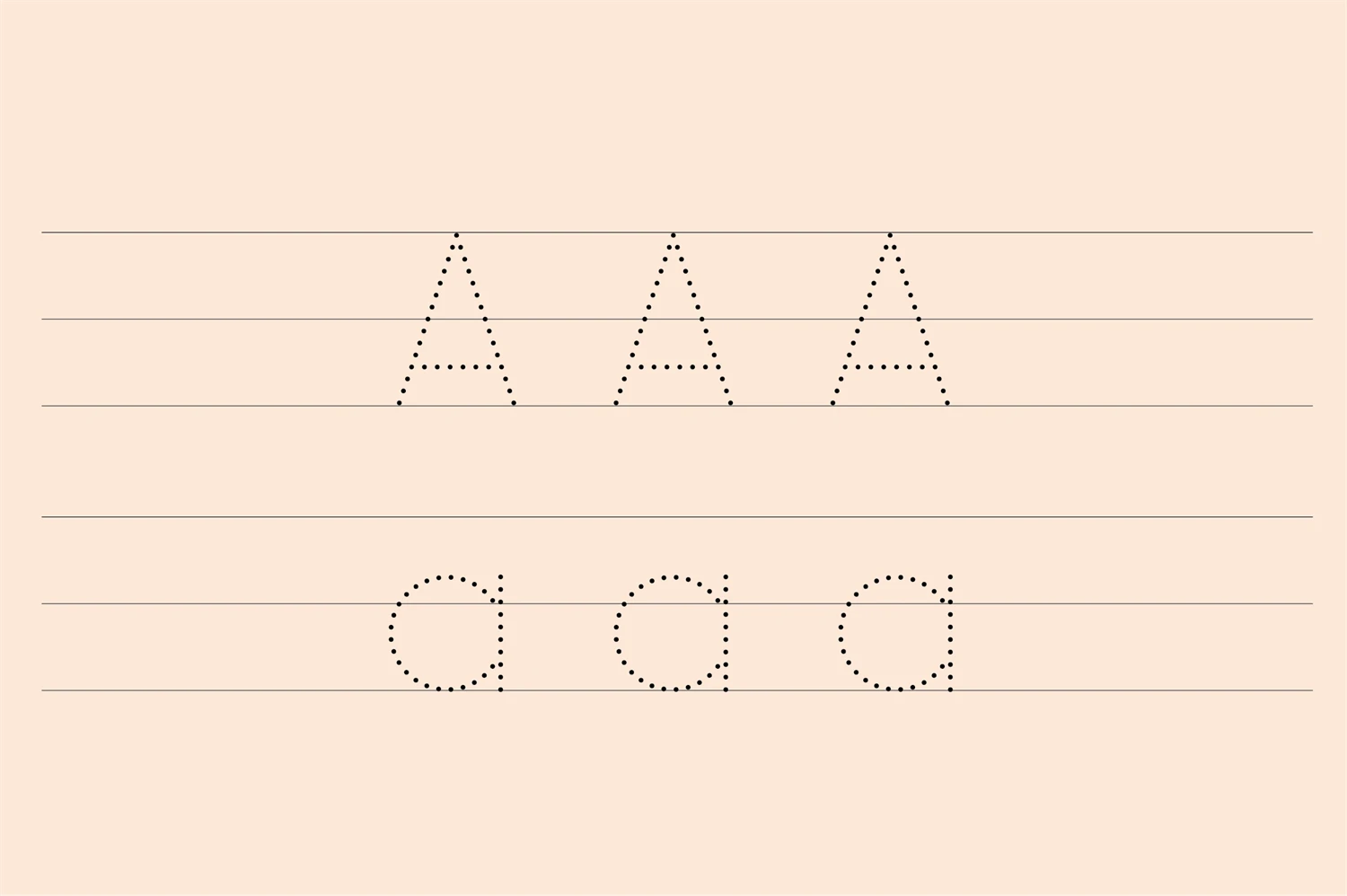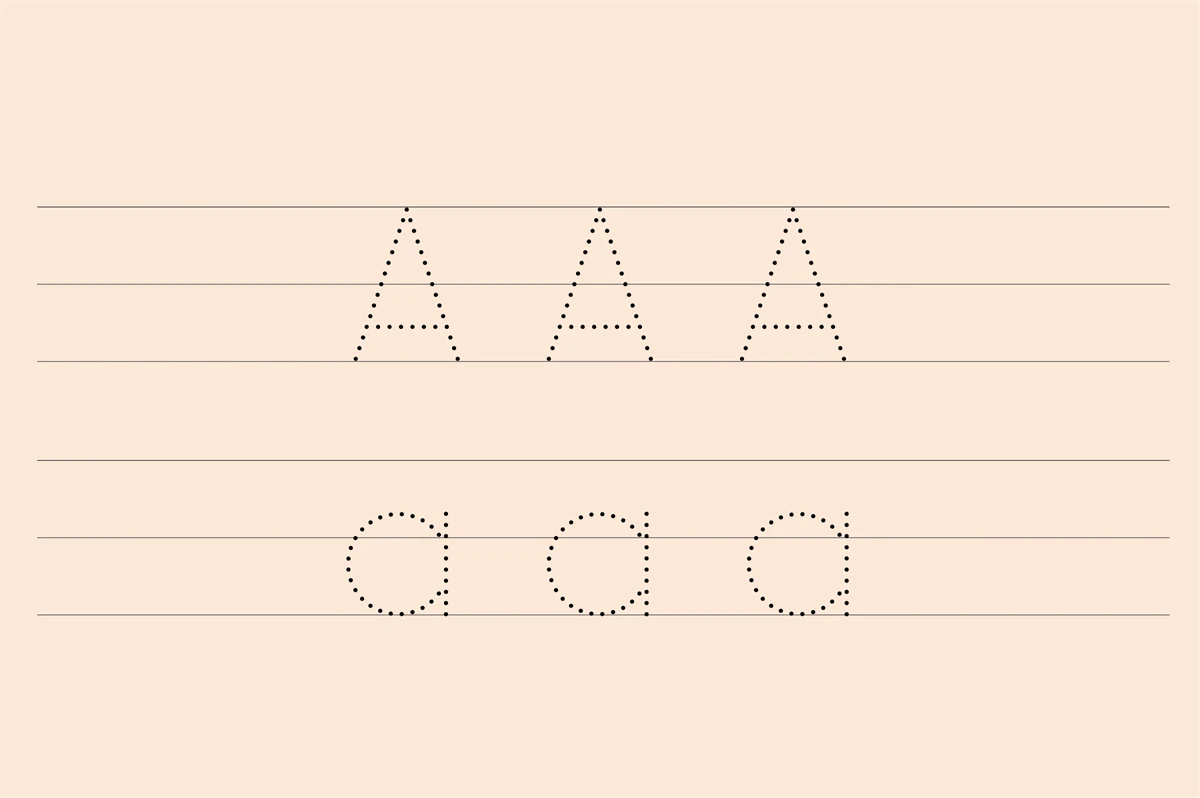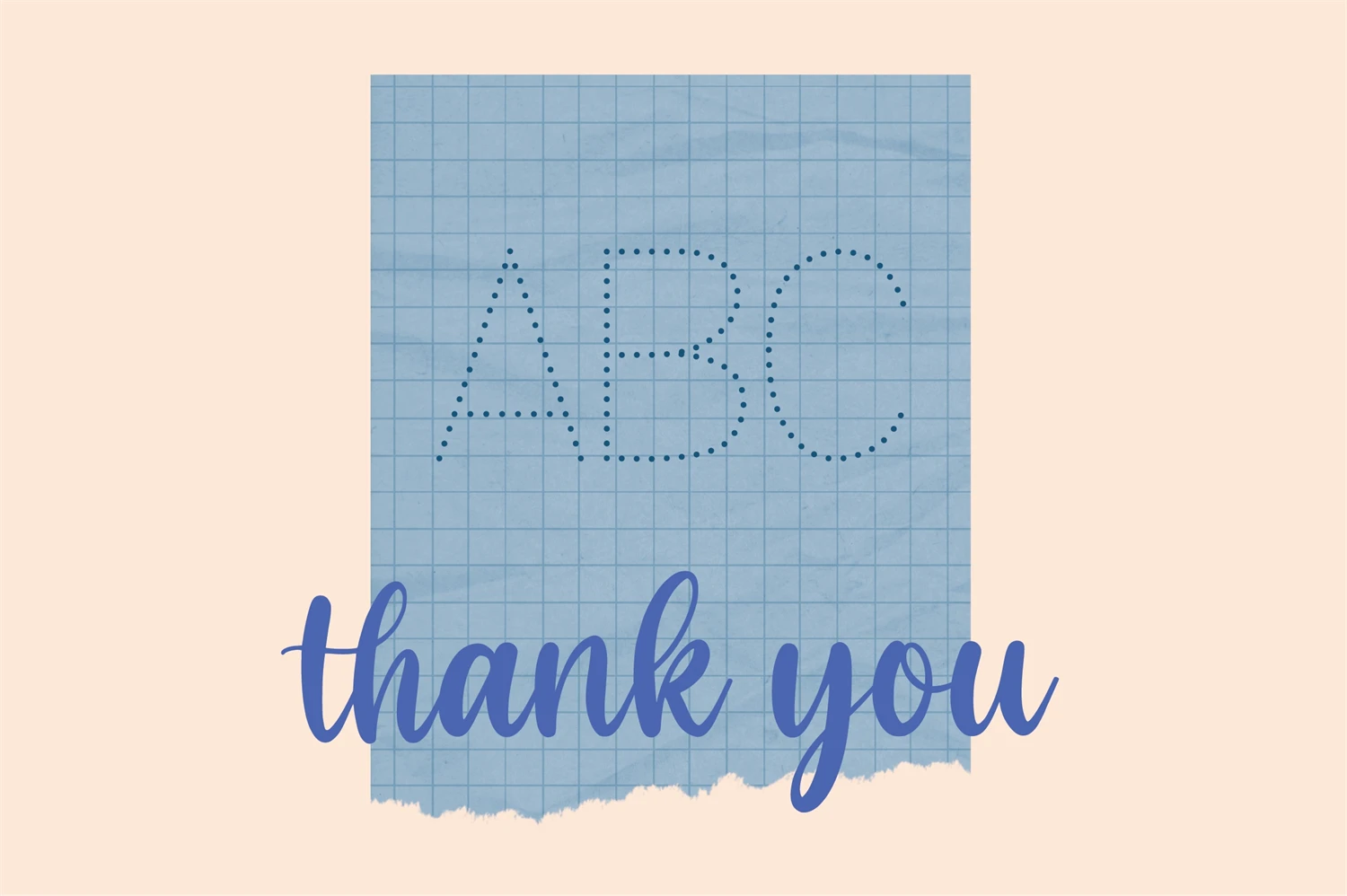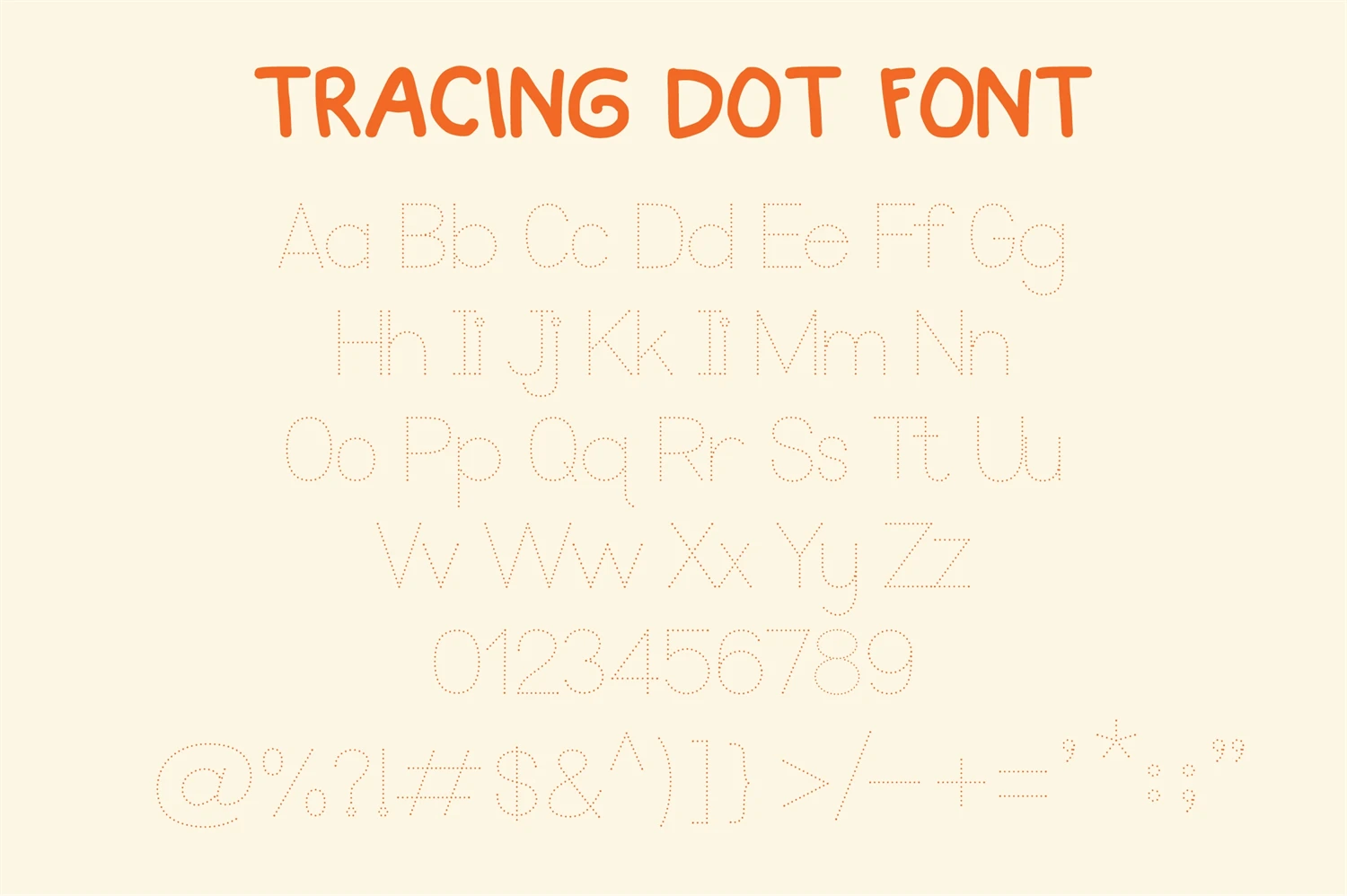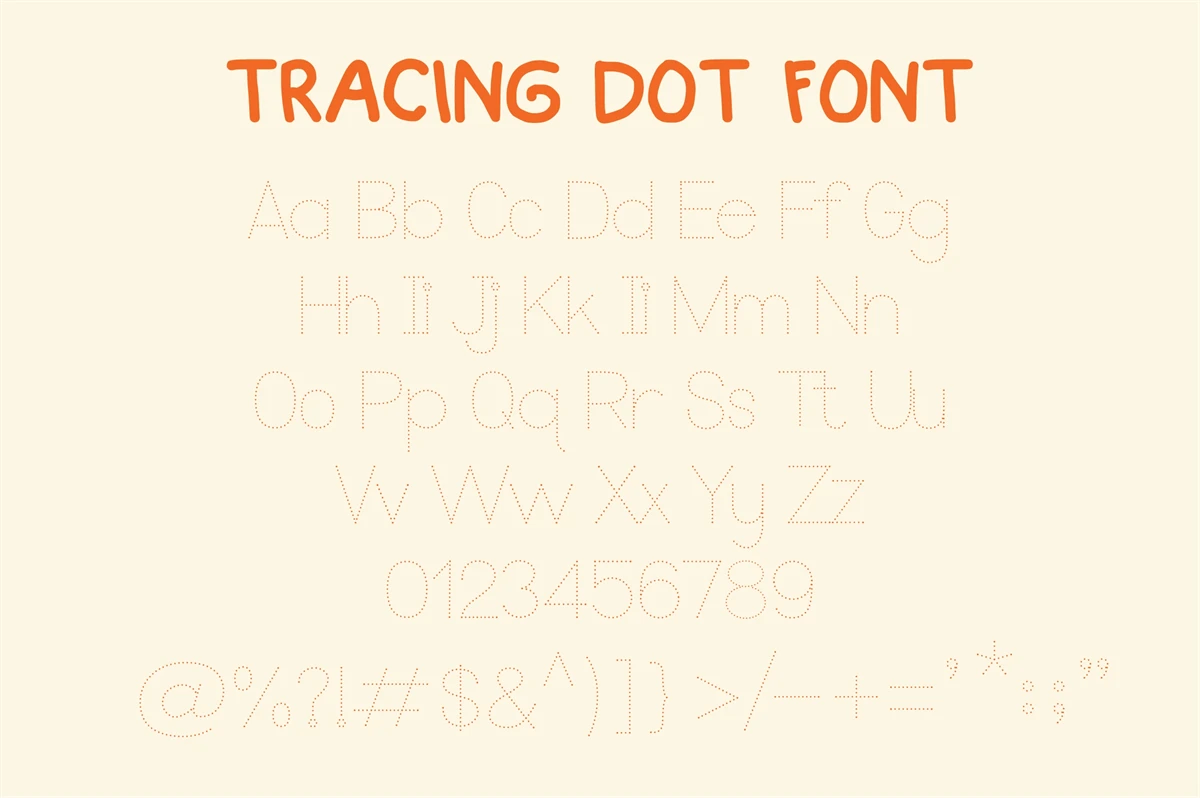
Simplify your lettering and handwriting practice with the Tracing Dot font. Ideal for kids and beginners, this font features dotted lines to help guide your writing. Perfect for learning the basics or improving your handwriting skills, its a fun and interactive tool for all ages.